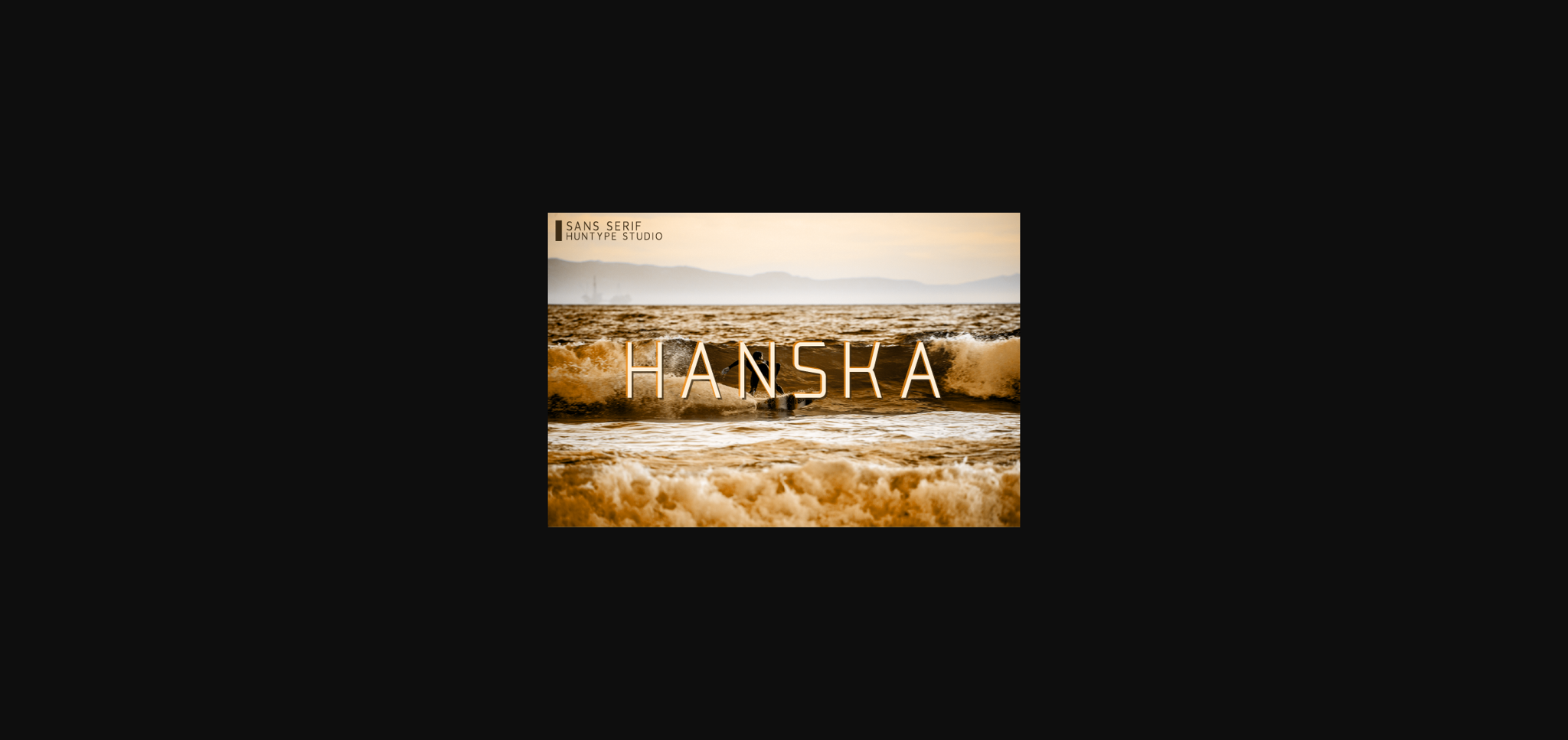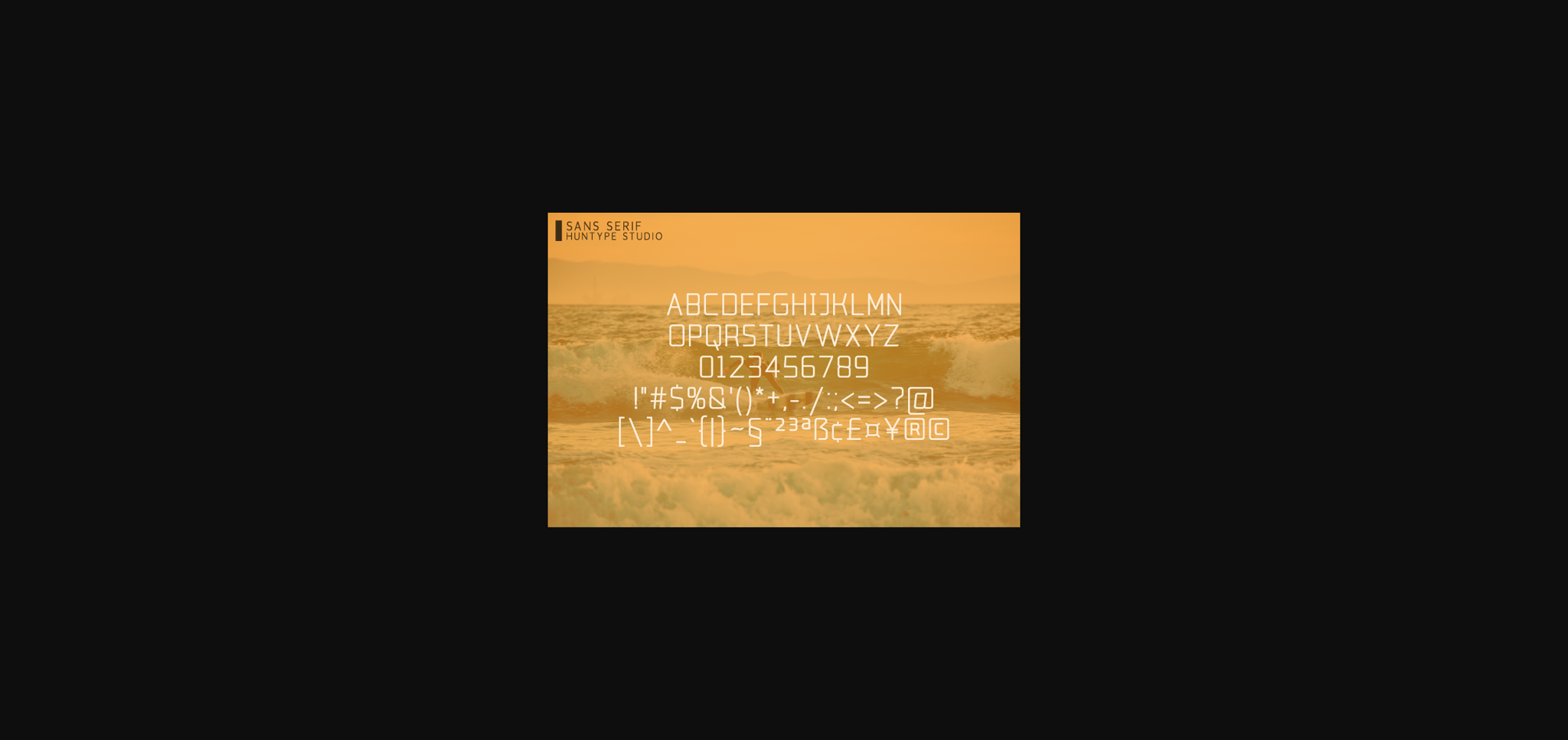
Hanska Font
About Hanska Font
Hanska is a modern sans serif font. It features an incredibly classic style, while still keeping a friendly feel. Hanska is the perfect font for making original and outstanding designs.